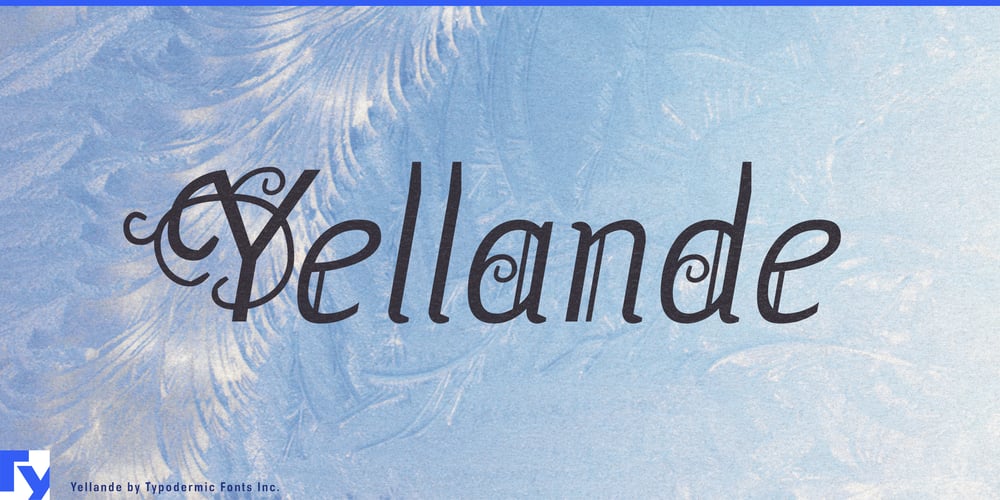
Yellande
Yellande font
Yellande Font Family was designed by Ray Larabie and published by Typodermic. Yellande contains 1 styles and family package options. Travel back in time with Yellande, the typeface that captures the essence of Montreal’s rich architectural history. Inspired by the wrought-iron ornamentation that adorns the city’s urban landscape, Yellande is a font that will transport you to a bygone era of grandeur and romance. With its elegant and sophisticated design, Yellande is the perfect typeface for any project that requires a touch of class and refinement. Whether you’re creating a travel brochure for a luxury hotel, designing a wedding invitation, or crafting a menu for a high-end restaurant, Yellande will add a touch of elegance and sophistication to your work. The swash style of Yellande is reminiscent of the flowing curves and intricate details of Montreal’s wrought-iron architecture. Its fancy capital letters will make any headline or title stand out, adding a touch of glamour and elegance to your design. So why settle for ordinary when you can elevate your design with Yellande? Let this typeface take you on a journey through Montreal’s rich history and inspire your creativity with its curled wrought-iron look. Yellande is the perfect choice for anyone looking to add a touch of elegance and sophistication to their design. Most Latin-based European writing systems are supported, including the following languages. Afaan Oromo, Afar, Afrikaans, Albanian, Alsatian, Aromanian, Aymara, Bashkir (Latin), Basque, Belarusian (Latin), Bemba, Bikol, Bosnian, Breton, Cape Verdean, Creole, Catalan, Cebuano, Chamorro, Chavacano, Chichewa, Crimean Tatar (Latin), Croatian, Czech, Danish, Dawan, Dholuo, Dutch, English, Estonian, Faroese, Fijian, Filipino, Finnish, French, Frisian, Friulian, Gagauz (Latin), Galician, Ganda, Genoese, German, Greenlandic, Guadeloupean Creole, Haitian Creole, Hawaiian, Hiligaynon, Hungarian, Icelandic, Ilocano, Indonesian, Irish, Italian, Jamaican, Kaqchikel, Karakalpak (Latin), Kashubian, Kikongo, Kinyarwanda, Kirundi, Kurdish (Latin), Latvian, Lithuanian, Lombard, Low Saxon, Luxembourgish, Maasai, Makhuwa, Malay, Maltese, Māori, Moldovan, Montenegrin, Ndebele, Neapolitan, Norwegian, Novial, Occitan, Ossetian (Latin), Papiamento, Piedmontese, Polish, Portuguese, Quechua, Rarotongan, Romanian, Romansh, Sami, Sango, Saramaccan, Sardinian, Scottish Gaelic, Serbian (Latin), Shona, Sicilian, Silesian, Slovak, Slovenian, Somali, Sorbian, Sotho, Spanish, Swahili, Swazi, Swedish, Tagalog, Tahitian, Tetum, Tongan, Tshiluba, Tsonga, Tswana, Tumbuka, Turkish, Turkmen (Latin), Tuvaluan, Uzbek (Latin), Venetian, Vepsian, Võro, Walloon, Waray-Waray, Wayuu, Welsh, Wolof, Xhosa, Yapese, Zapotec Zulu and Zuni.